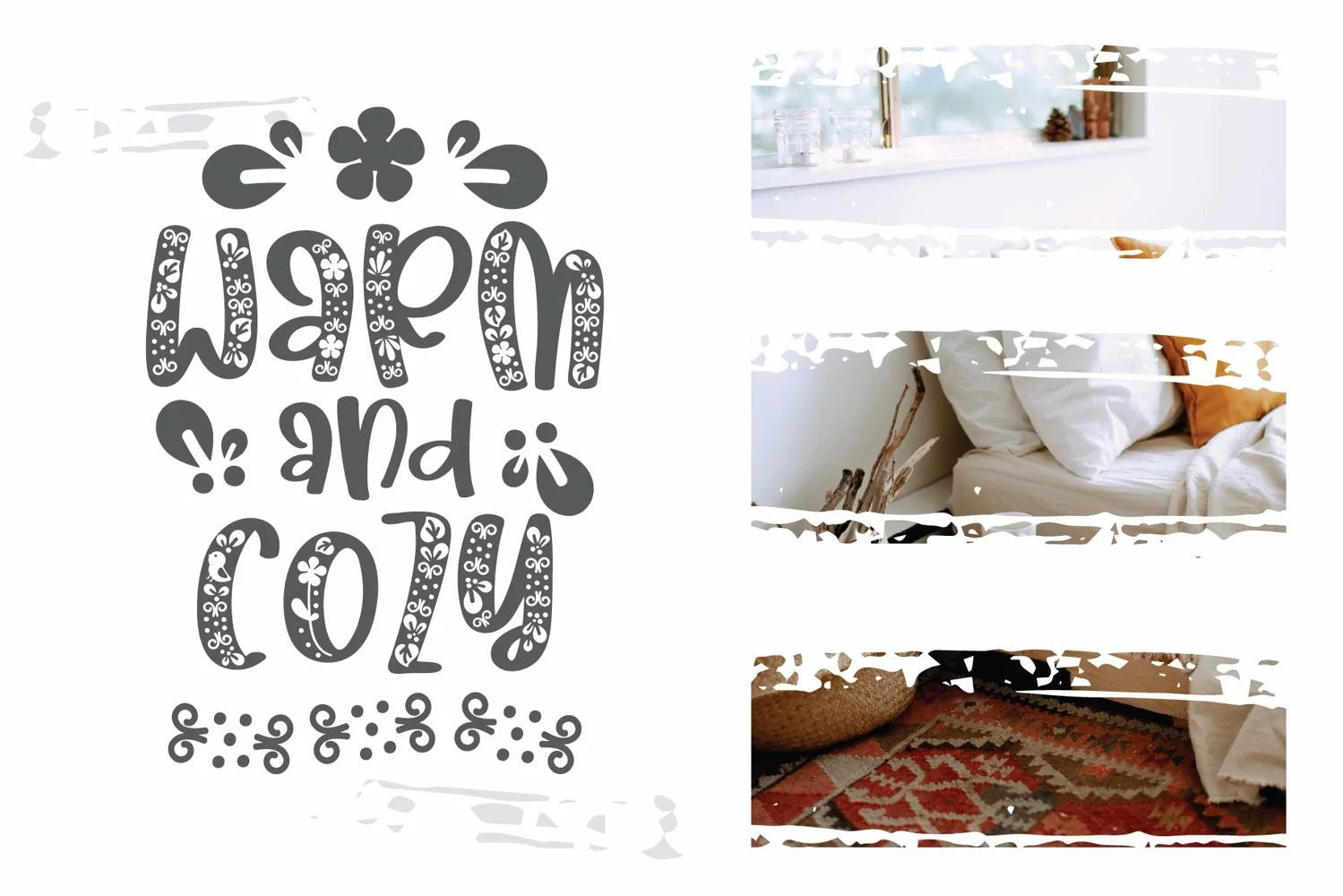
Bubbly Letter - A Cute Preppy Bubble Font
Fall Decoration is a cool, incredibly cute, and fun display font. Add it to each of your party invitations, gathering, or pretty much any design that requires a touch of youth and joy.